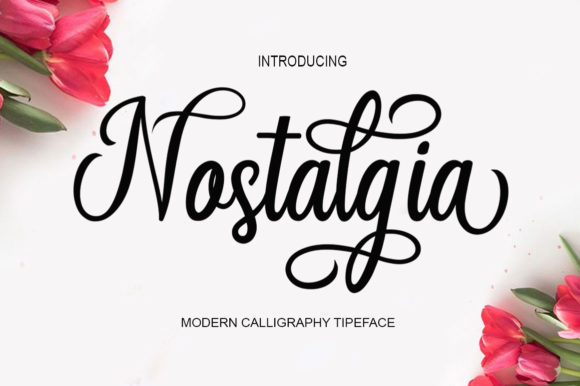
Step into a realm of elegance and charm with Nostalgia Font, a mesmerizing script font family that will leave you spellbound. Its captivating strokes evoke a sense of nostalgia, reminiscent of handwritten letters from a bygone era. With its playful edge and carefree attitude, Nostalgia Font is perfect for adding a touch of whimsy and individuality to your creative projects.
Imagine the enchantment of a handwritten note, the warmth of a personal letter, or the allure of a heartfelt invitation. Nostalgia Font captures the essence of these cherished moments, transforming your digital creations into tangible expressions of artistry. Its natural-looking ligatures add a touch of authenticity, lending an air of effortless beauty to your designs.
Unleash your creativity and explore the boundless possibilities of Nostalgia Font. Craft logos that exude a timeless charm, design invitations that speak of heartfelt emotions, and create social media posts that radiate warmth and engagement. Whether you're a seasoned designer or just starting your creative journey, Nostalgia Font is the perfect companion to bring your vision to life.
This remarkable font is meticulously PUA encoded, ensuring seamless access to its entire repertoire of glyphs and swashes. With just a few clicks, you can unlock a world of typographic wonders, adding intricate details and flourishes that elevate your designs to new heights.
Nostalgia Font is more than just a collection of letters; it's an invitation to embark on a creative voyage, where your imagination knows no bounds. Embrace the allure of Nostalgia Font and let your designs bloom with elegance, charm, and a touch of nostalgia.